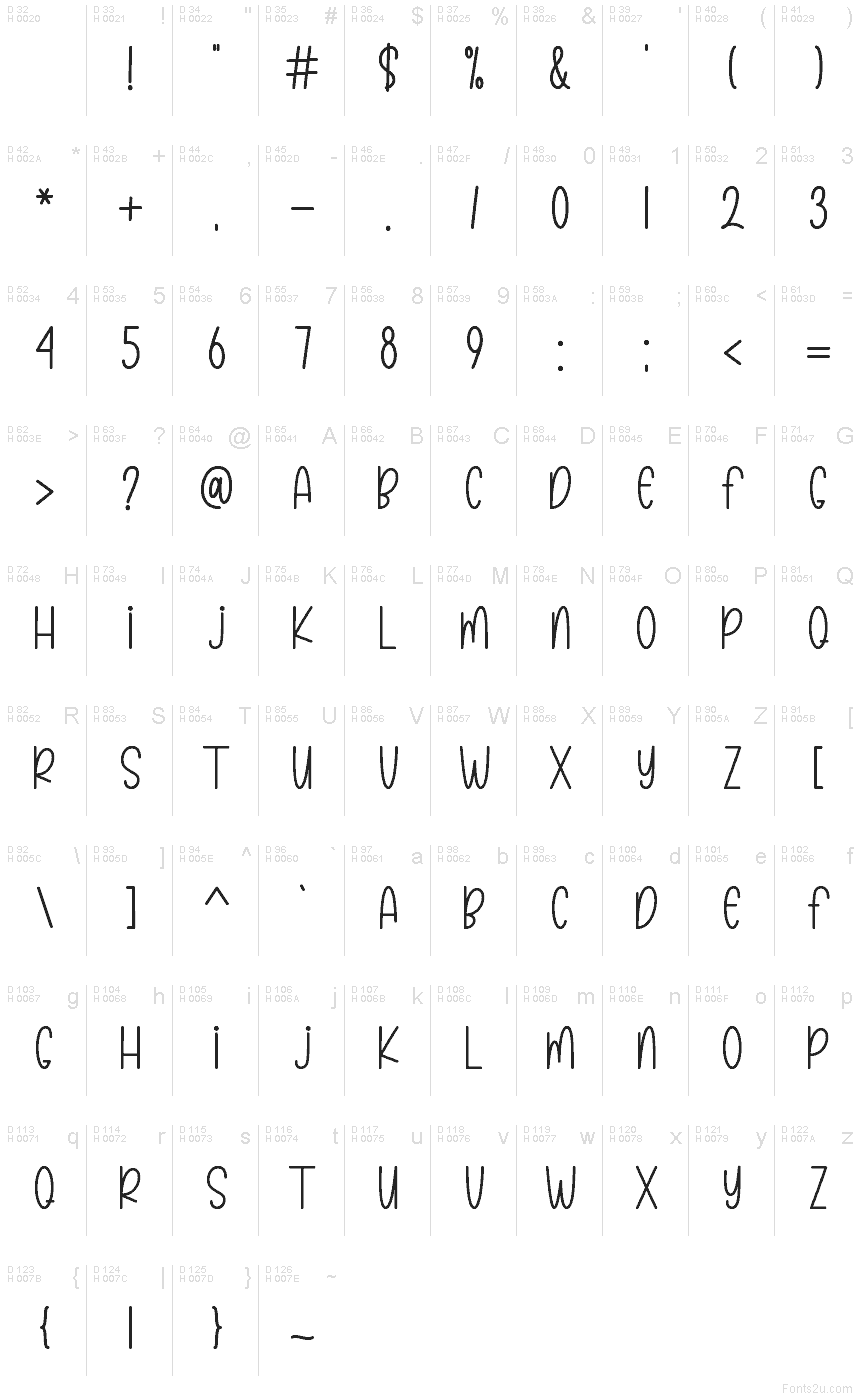
Pink March
Pink March font, crafted by DN Creative, embodies a youthful and sleek handwritten style. Its condensed form features clean lines that contribute to a minimalistic and modern appearance. Tailored for contemporary applications, it effortlessly enhances digital media and branding projects.